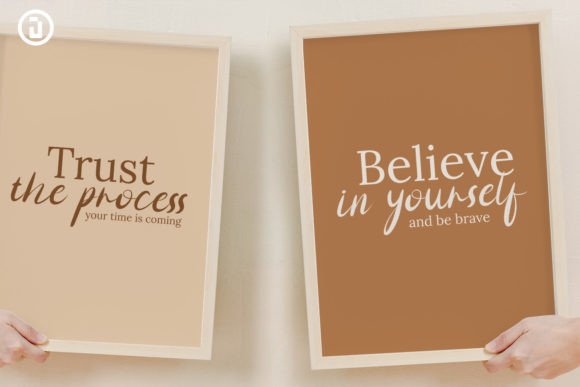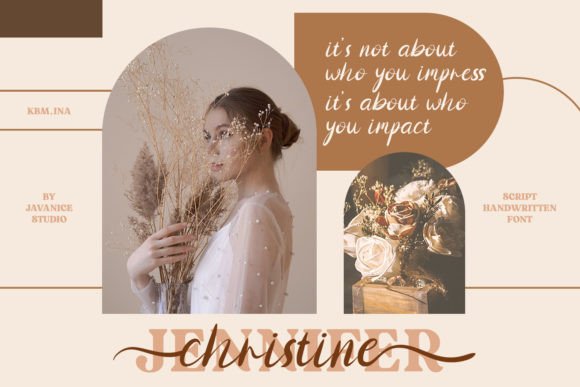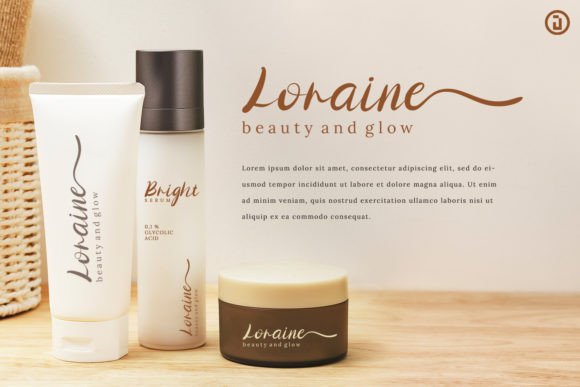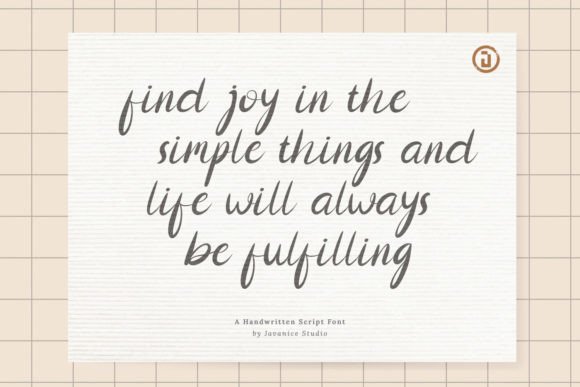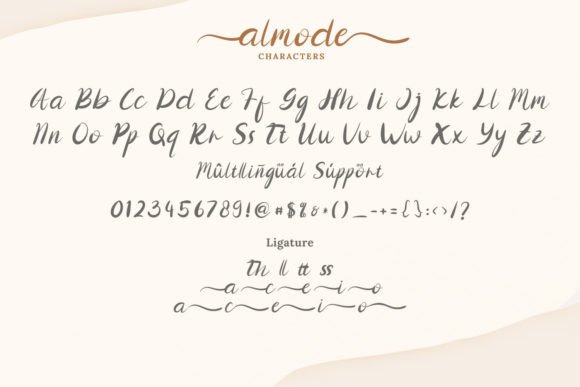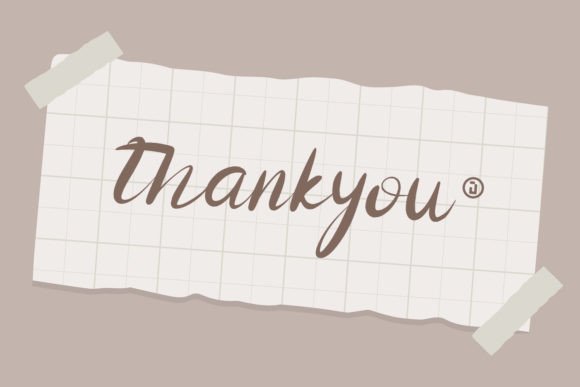
The Almode Font: A Beautiful Handwritten Companion for Creative Projects
I’ll never forget the time I was working on a branding project for a fashion client, and I just couldn’t seem to find the right font. The client wanted something elegant, yet playful; something that would capture the essence of their brand. That’s when I stumbled upon the Almode font. It was love at first sight! 💕
As a designer, I’ve worked with countless fonts over the years, but Almode quickly became one of my go-tos. Its beautiful handwritten style is perfect for a wide range of projects, from branding and apparel to labels, magazines, and more.
An Honest Review of Almode Font
What I Love About Almode ✨
- 💫 Beautiful, elegant handwritten style that’s perfect for high-end branding projects
- ✅ Highly versatile and can be used for a wide range of creative projects
- 🎨 Gorgeous OpenType features, glyphs, and stylistic alternates that add an extra layer of creativity
- 📚 Excellent for use in magazines, books, and other long-form content
- ⚠️ Some users may find the font a bit too ornate for certain projects
- ⚠️ Limited use for body text due to its decorative nature
The Story Behind Almode Font
Almode was designed by a talented typographer who wanted to create a font that would capture the essence of handwritten elegance. Inspired by classic calligraphy and modern script fonts, Almode was born. Its creator aimed to design a font that would be both beautiful and versatile, suitable for a wide range of creative projects.
Q: What type of projects is Almode best suited for?
A: Almode is perfect for branding projects, apparel, labels, magazines, books, greeting/wedding cards, packaging, fashion, make-up, stationery, and any type of advertising purpose.
Q: Is Almode a difficult font to use?
A: Not at all! Almode is relatively easy to use, especially if you’re familiar with OpenType features and glyphs. If you’re new to using fonts, you may need to spend some time getting familiar with the font’s features.
Q: Can I use Almode for body text?
A: While Almode is a beautiful font, it’s not ideal for body text due to its decorative nature. It’s best used for headlines, titles, and short paragraphs.